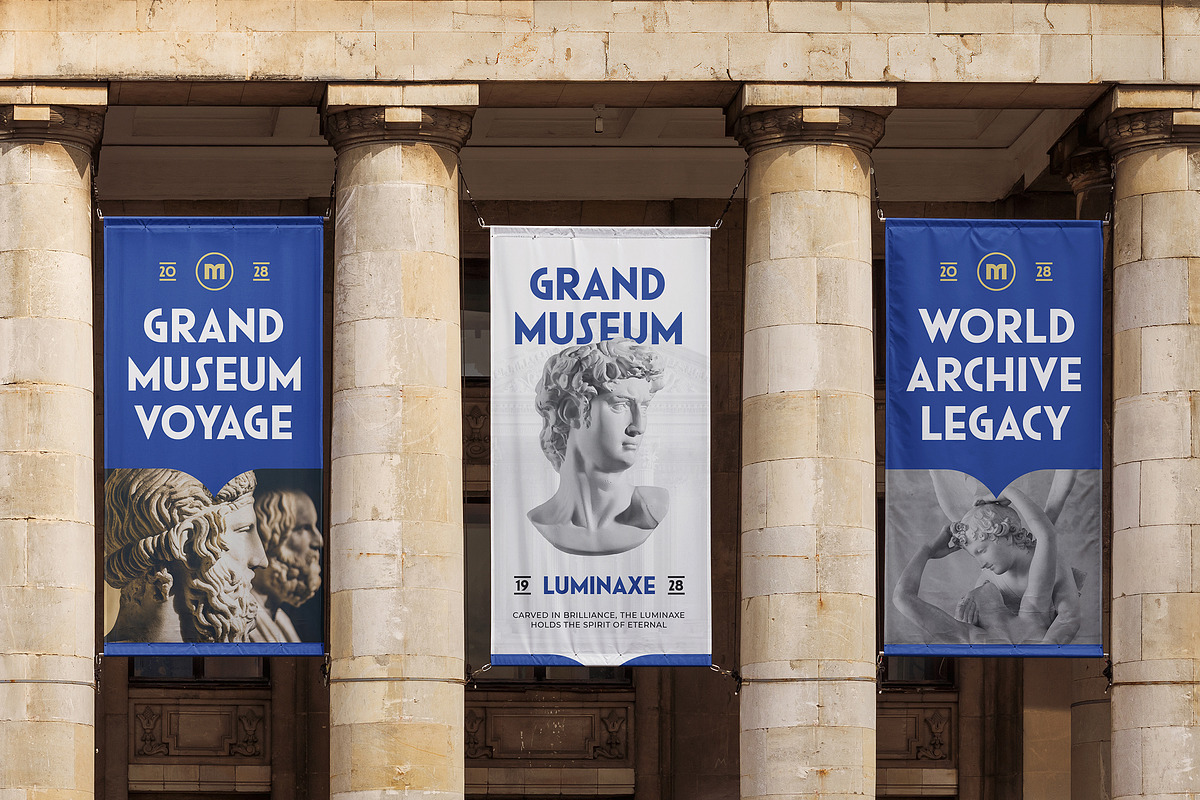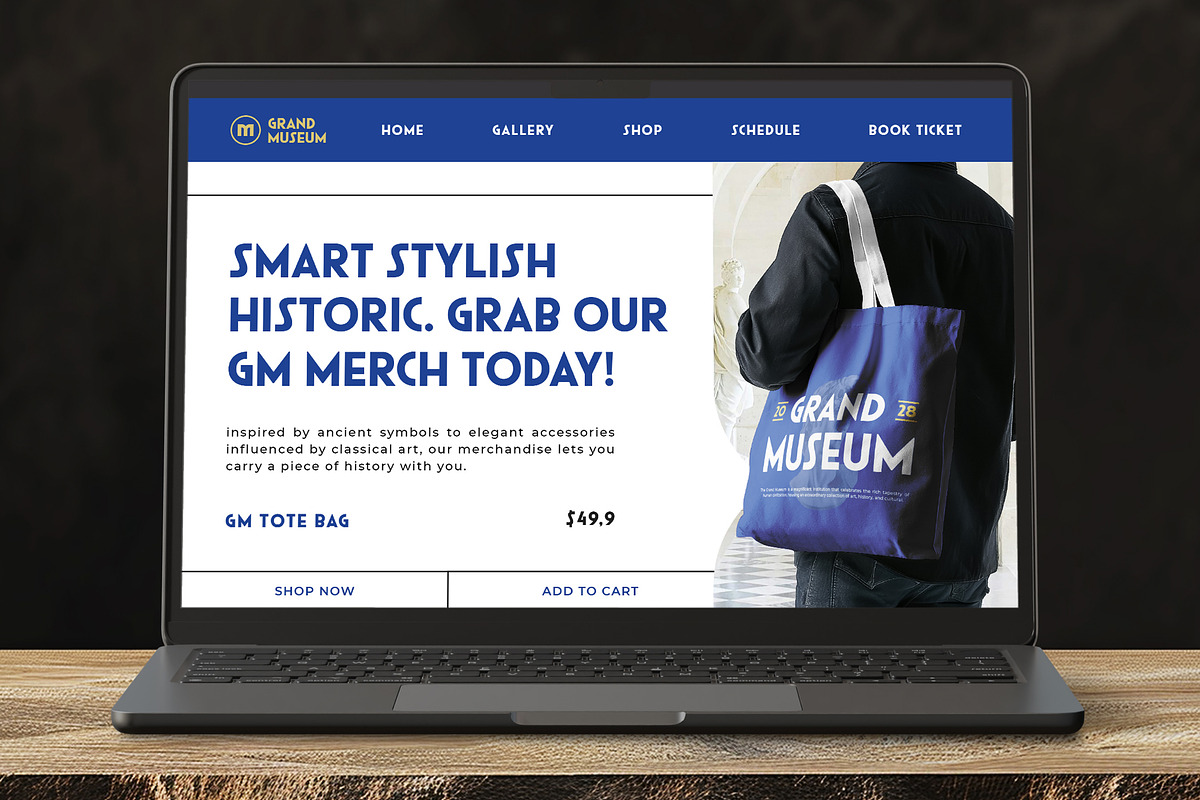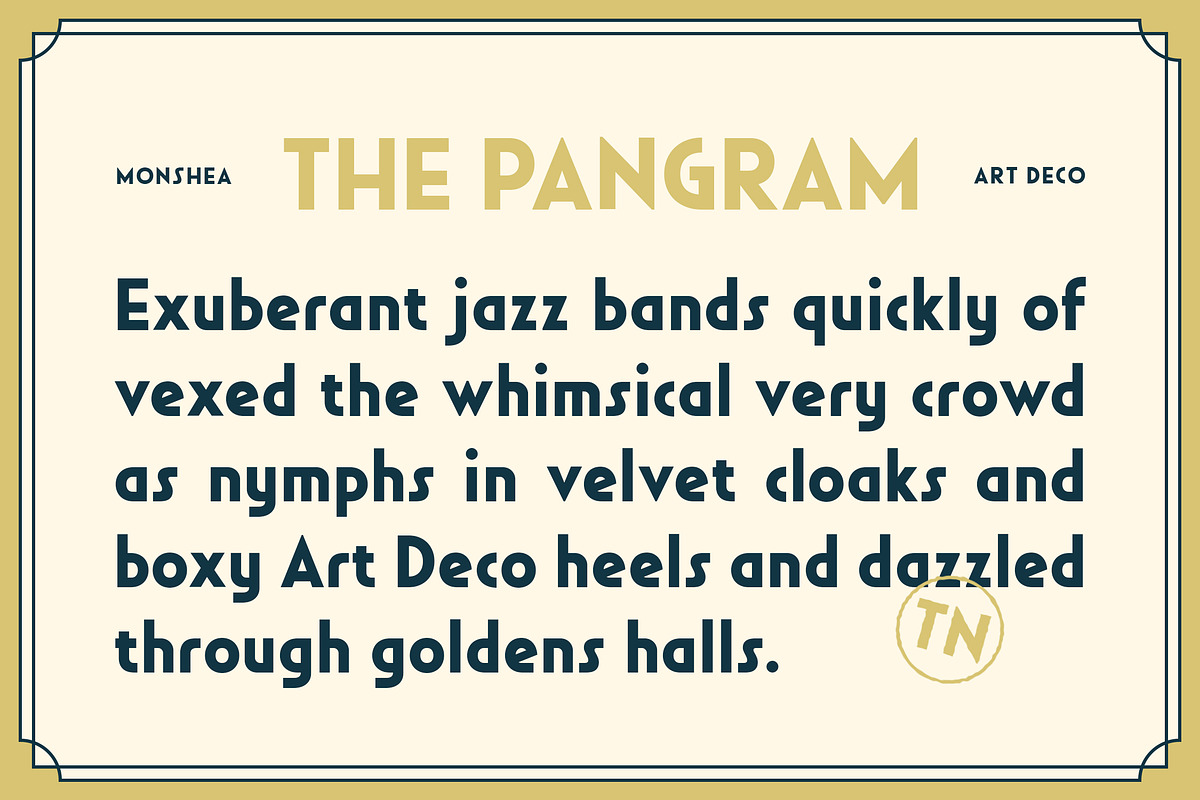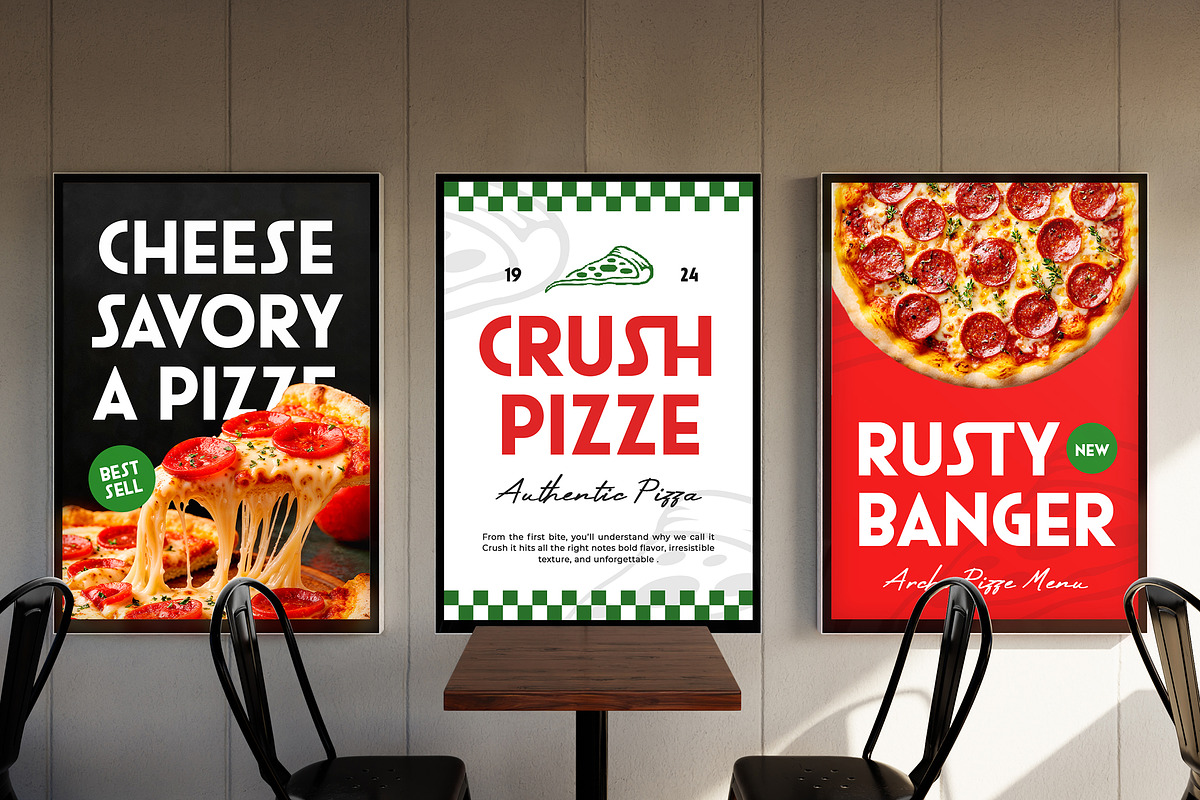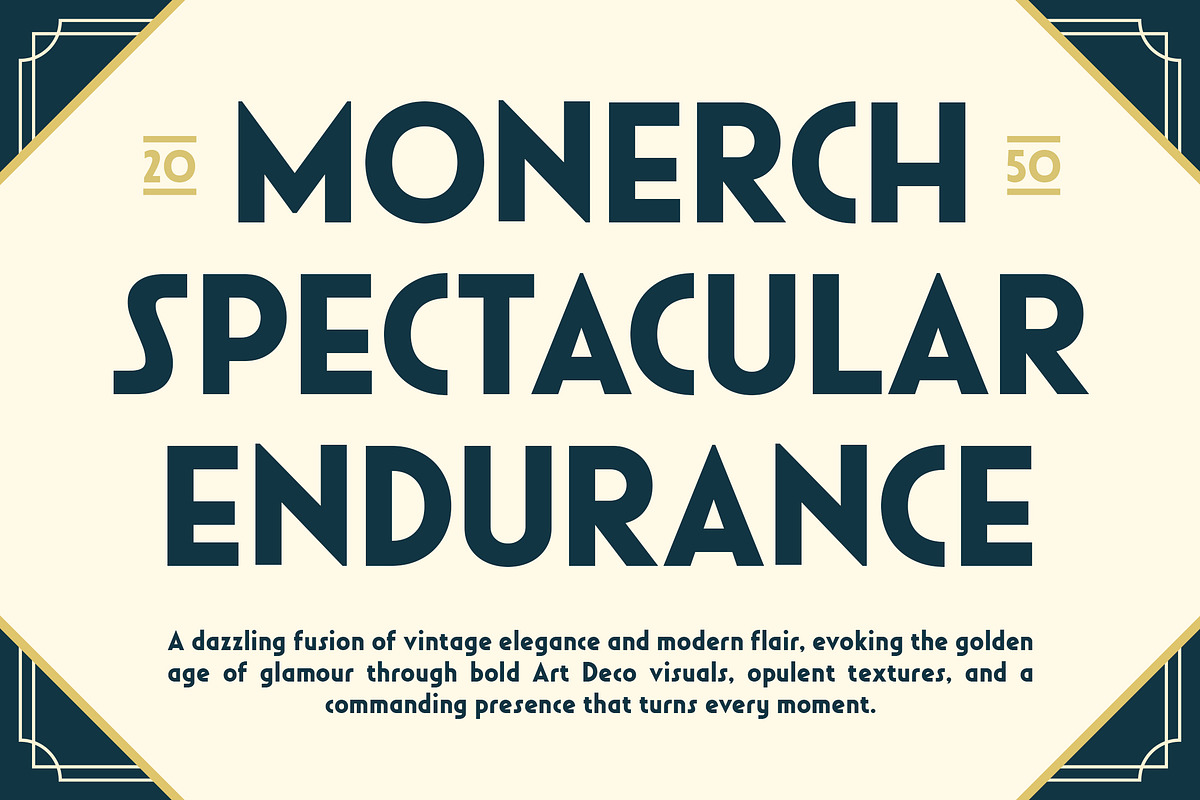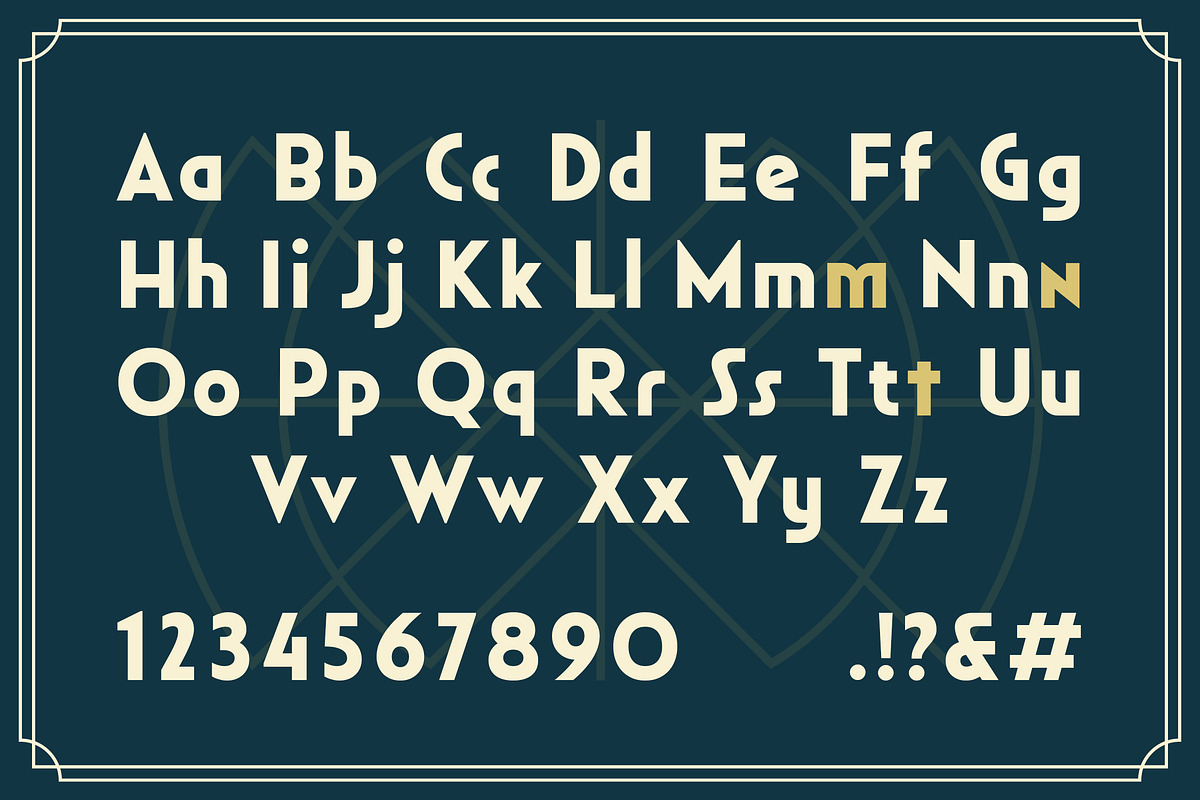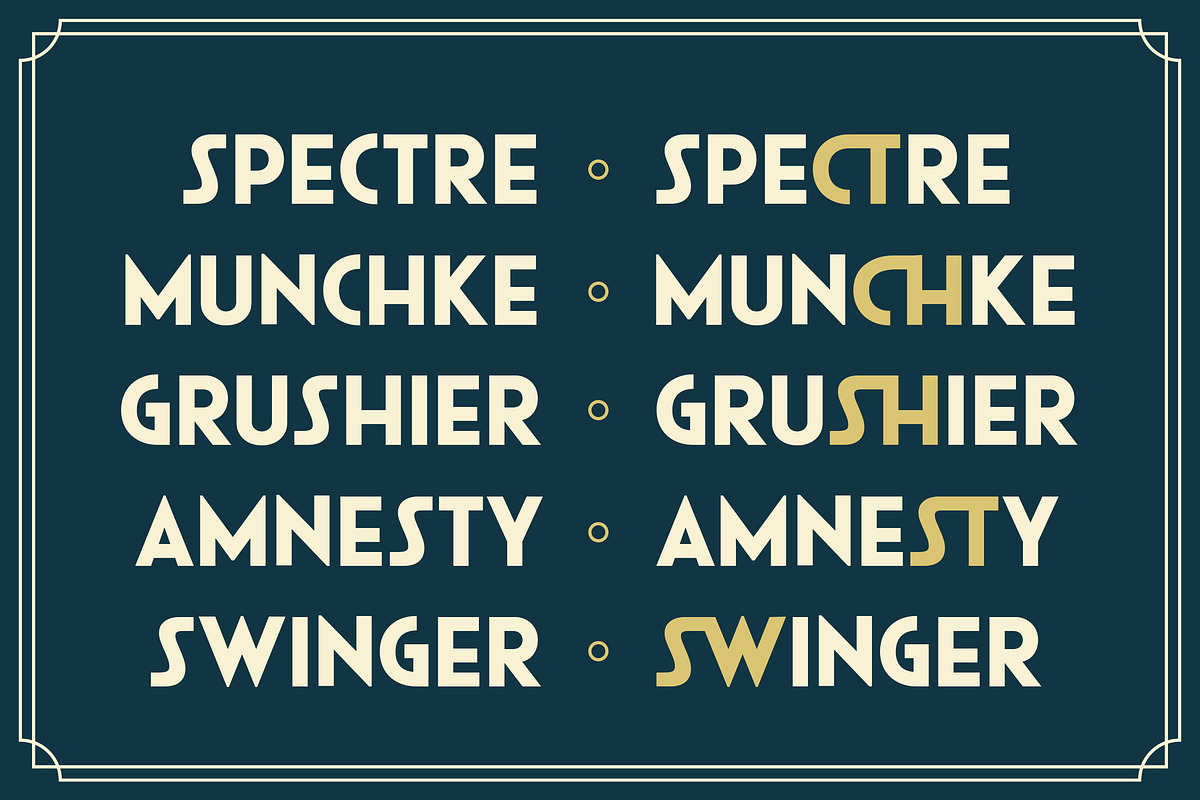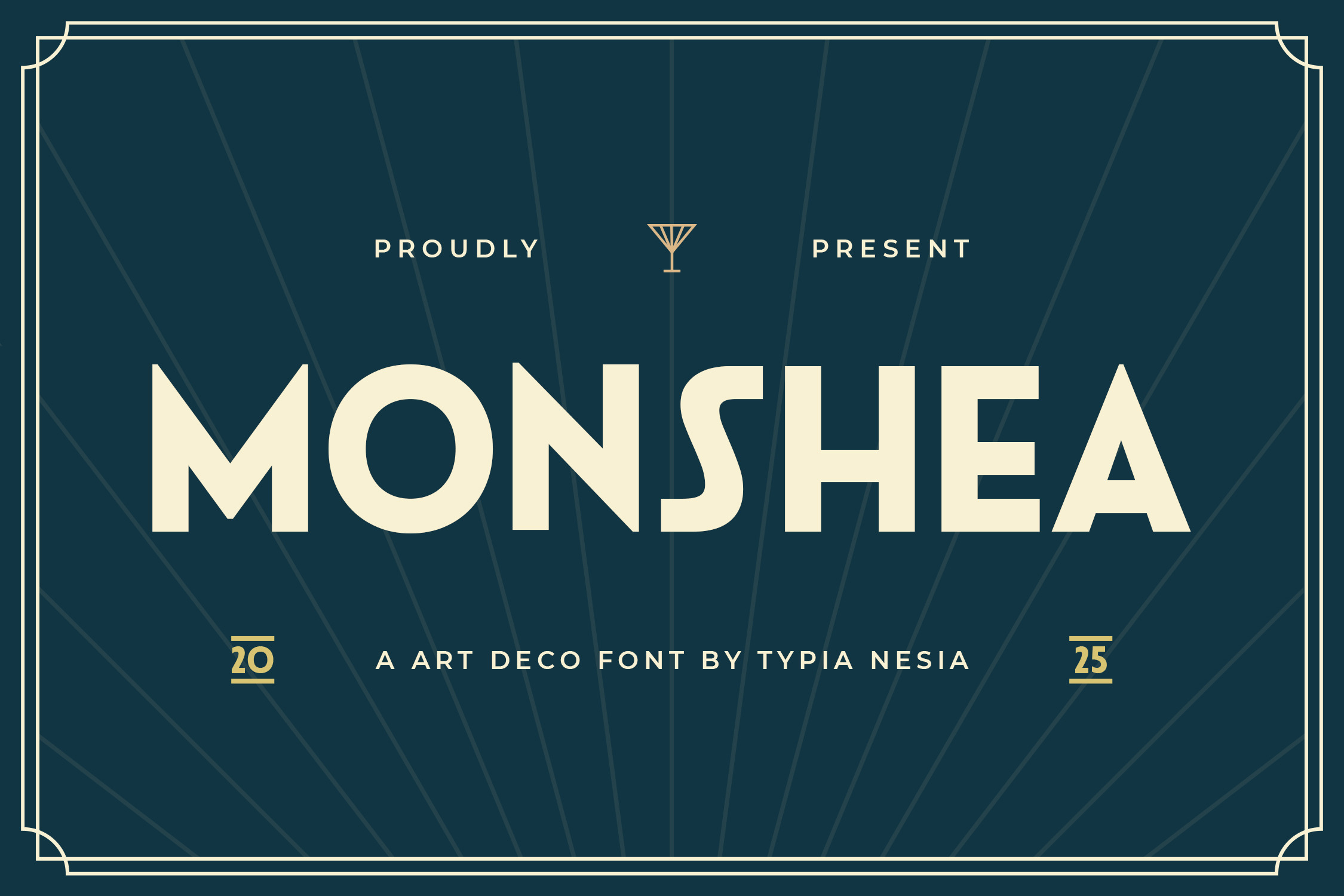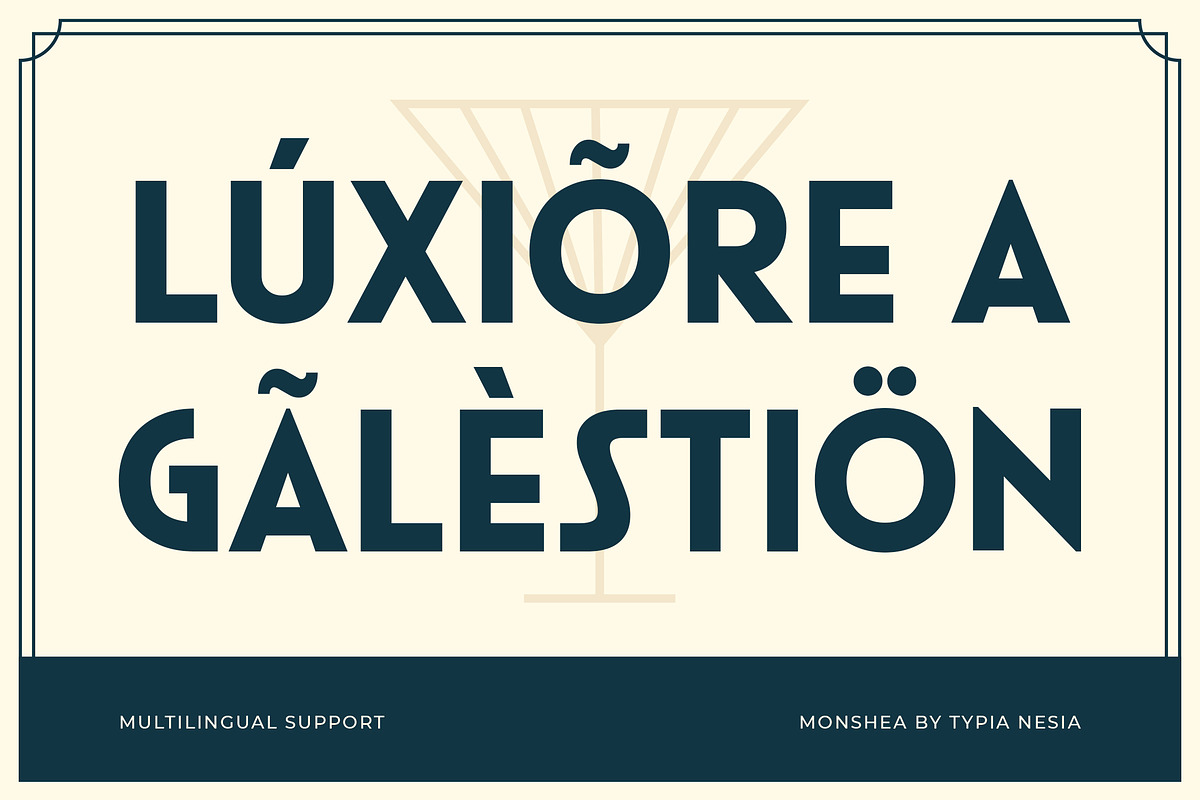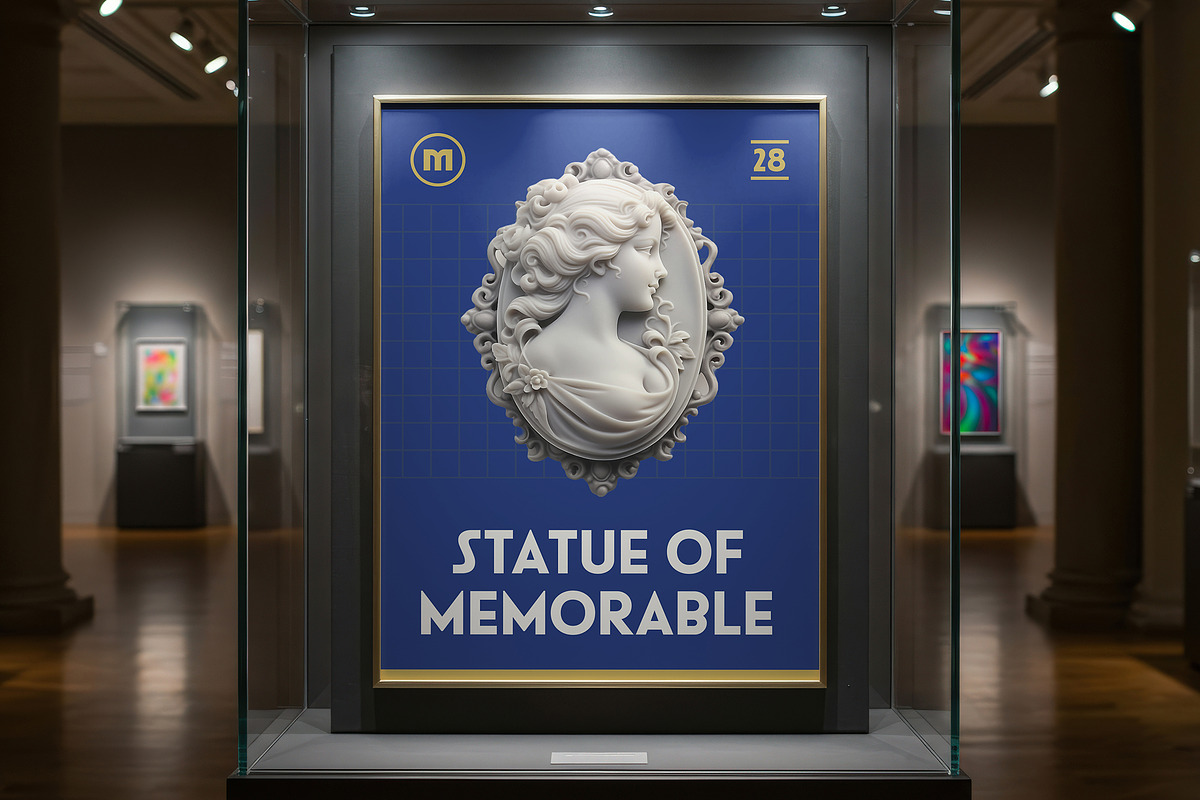
Monshea - Bold Art Deco Sans Font
Monshea - Bold Art Deco Sans Font - Classic Vintage Luxury Branding & Modern Designs
Monshea is a bold Art Deco Sans font that Classic merges vintage historical with modern flair. This bold display typeface features strong, geometric forms and a distinct Art Deco aesthetic, evoking the glamour of the Jazz Age. Perfect for high-end branding, captivating headlines, sophisticated packaging, classic posters, web design, logos and any project requiring an opulent, retro-inspired, yet contemporary touch, Monshea adds a commanding presence and refined sophistication to your designs.